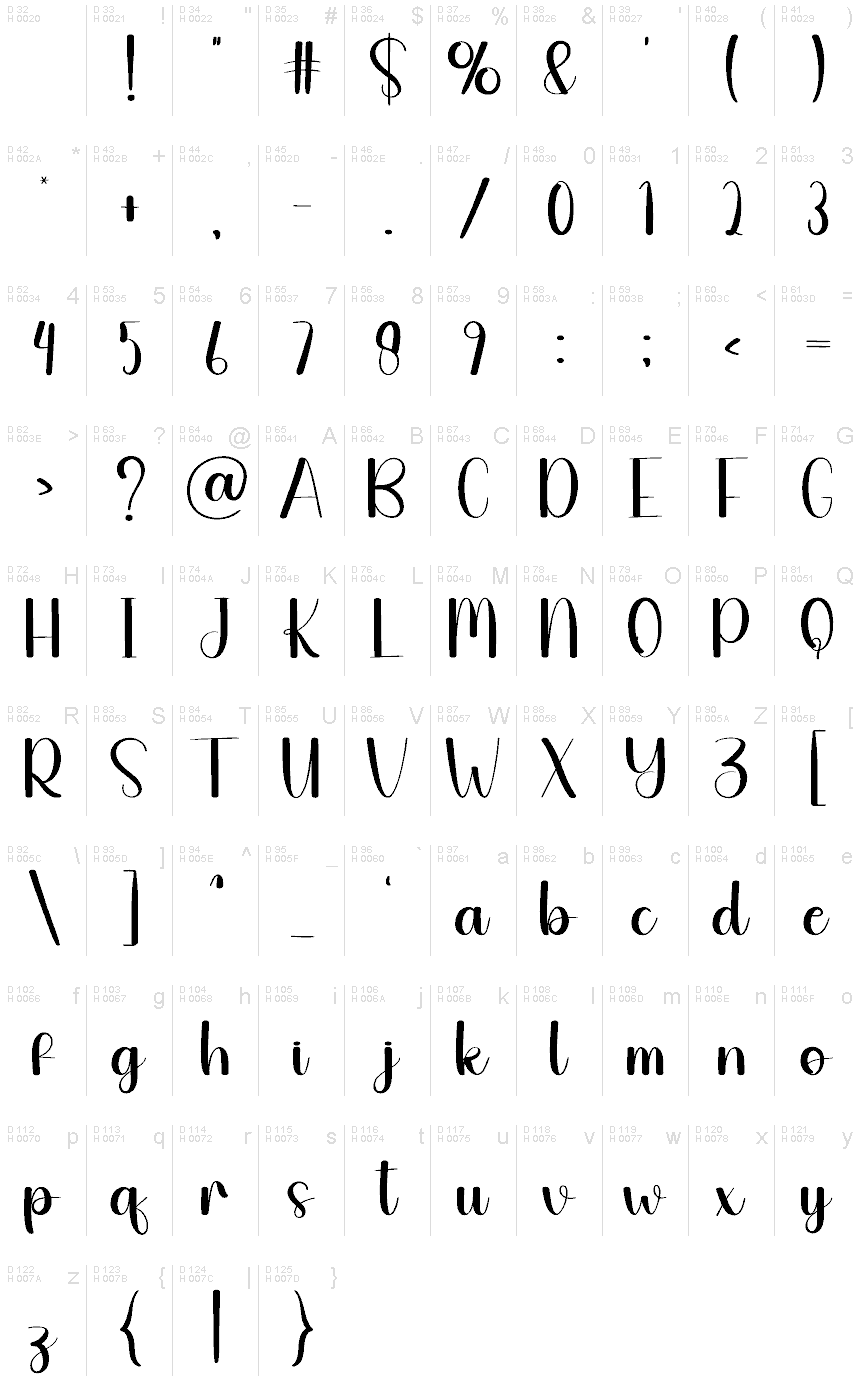
Beetle
Beetle font was created by Andi Moz, and it is a sophisticated handwritten free font for calm and smooth designs. Whether you choose to go with either lowercase or uppercase letters, you’ll get the same elegant expressive type that has a retro-inspired look about it. The modern applications of this font are plenty; first of all, it can make every piece of text stand out when it’s used alone, but also when combined with other available possibilities.
The Beetle typeface will beautifully decorate branding items like packages and labels where full legibility is required. It can also be employed on items meant to be handled close hand like business cards and product labels making an overall positive impression. Finally, consider this resource for printed promotional material, website headers/footers/titles, mobile app designs as well as watermarks for online portfolios meant to showcase your hard work.